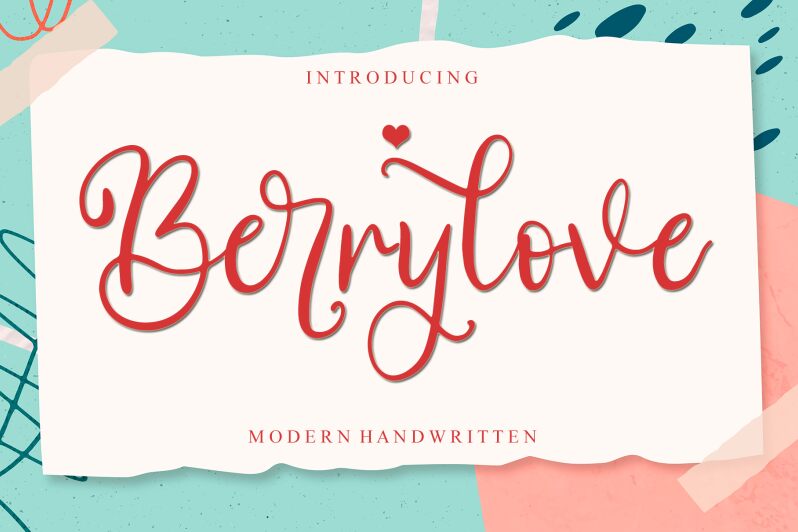
Introducing Berrylove, a light and whimsical curly calligraphy font by designer Ahmad Afandi. Perfect for adding a romantic touch to your creative projects, including wedding invitations, greeting cards, and love letters.